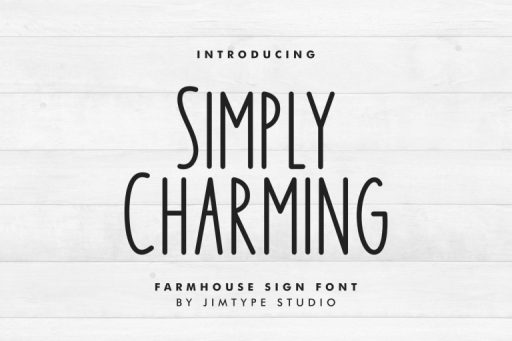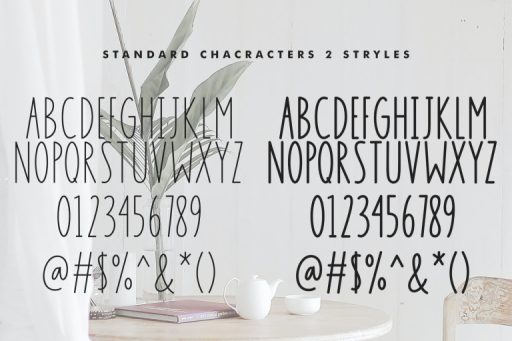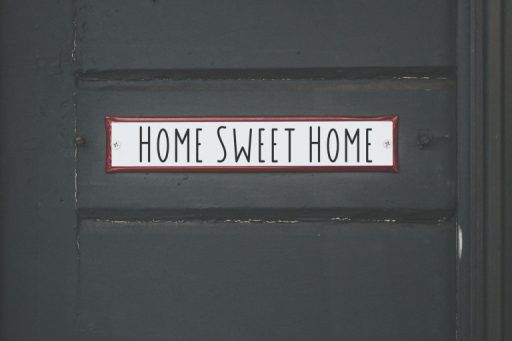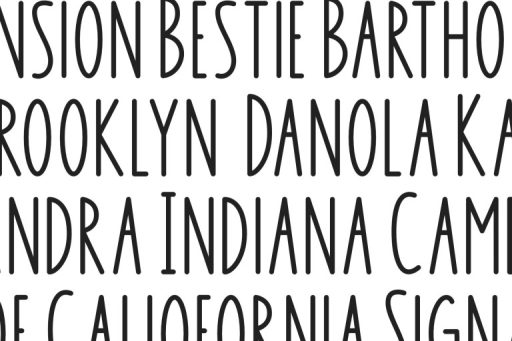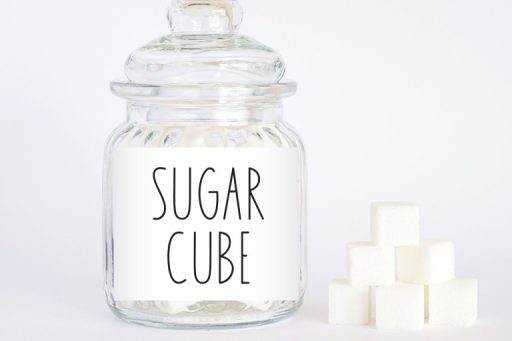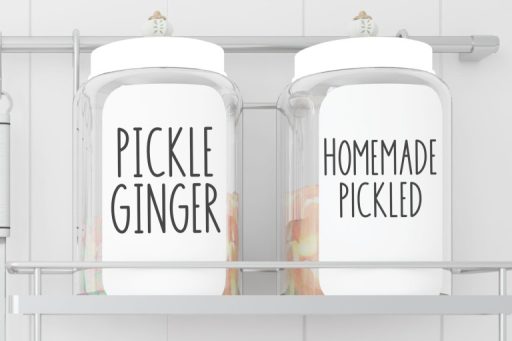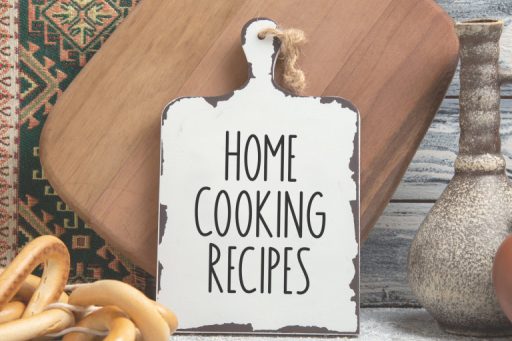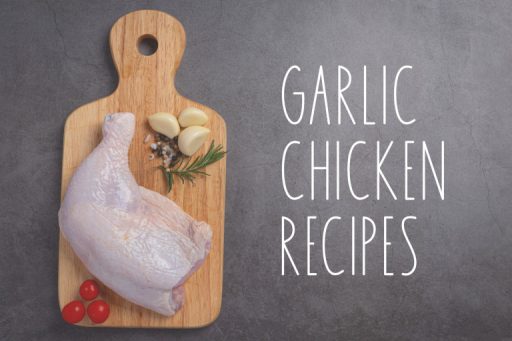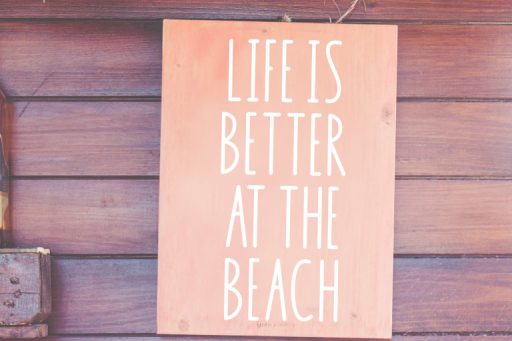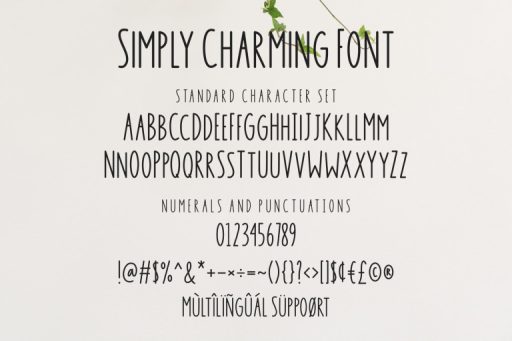
Simply Charming - Tall and Skinny Font Jimtype Studio
Simply Charming - Thin
Simply Charming - Regular
Simply Charming – Farmhouse Font from Jimtype Studio
Welcome to ‘Simply Charming‘ Font, where farmhouse elegance meets versatility! 🏡✨ Our font, available in both regular and thin styles, draws inspiration from the timeless farmhouse aesthetic, making it perfect for Cricut enthusiasts and sign makers alike. Infuse your designs with rustic charm and add a touch of farmhouse sophistication to your projects. Explore ‘Simply Charming‘ Font collection today and discover the essence of simple yet captivating design.
• Multilingual Support